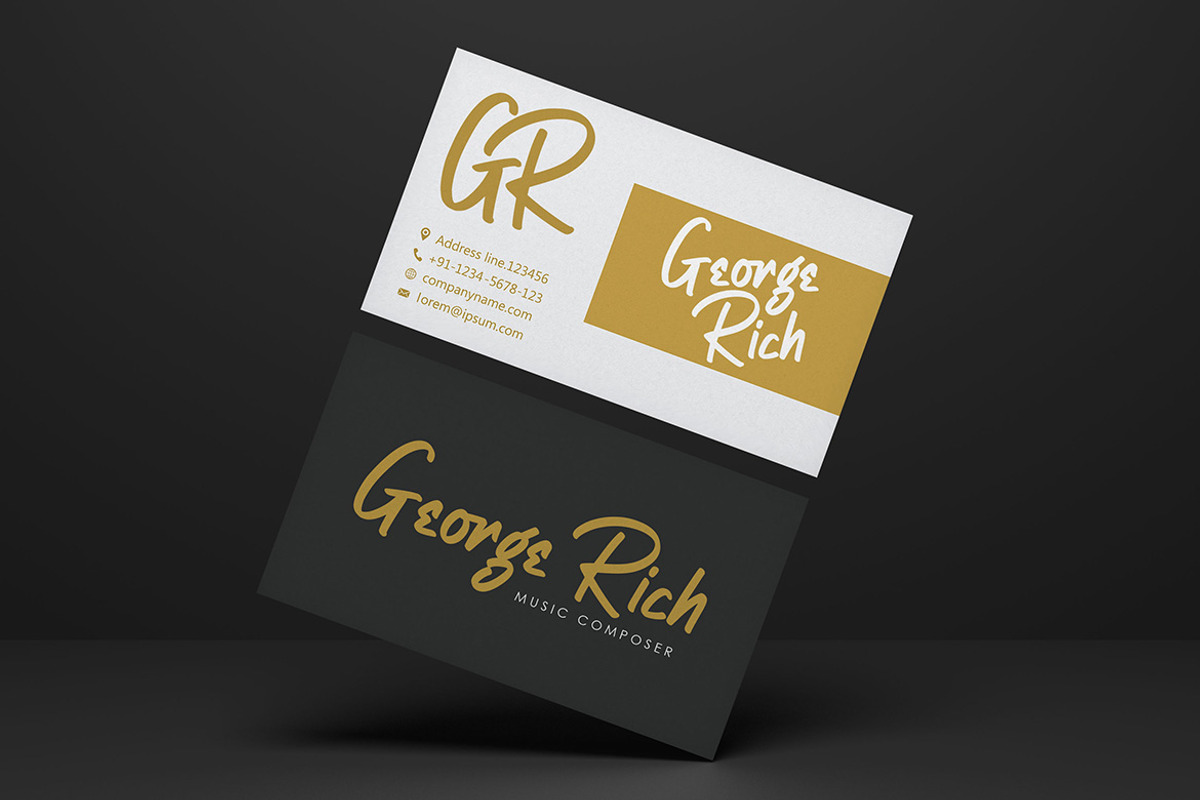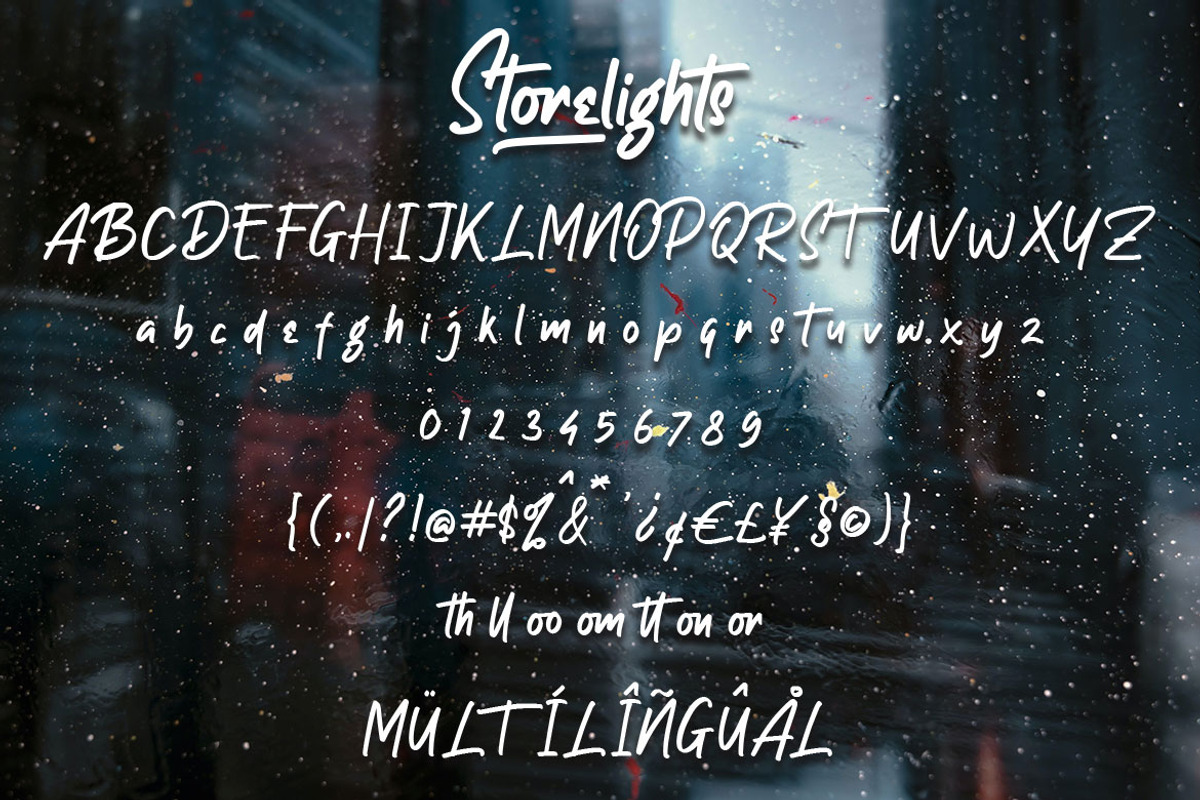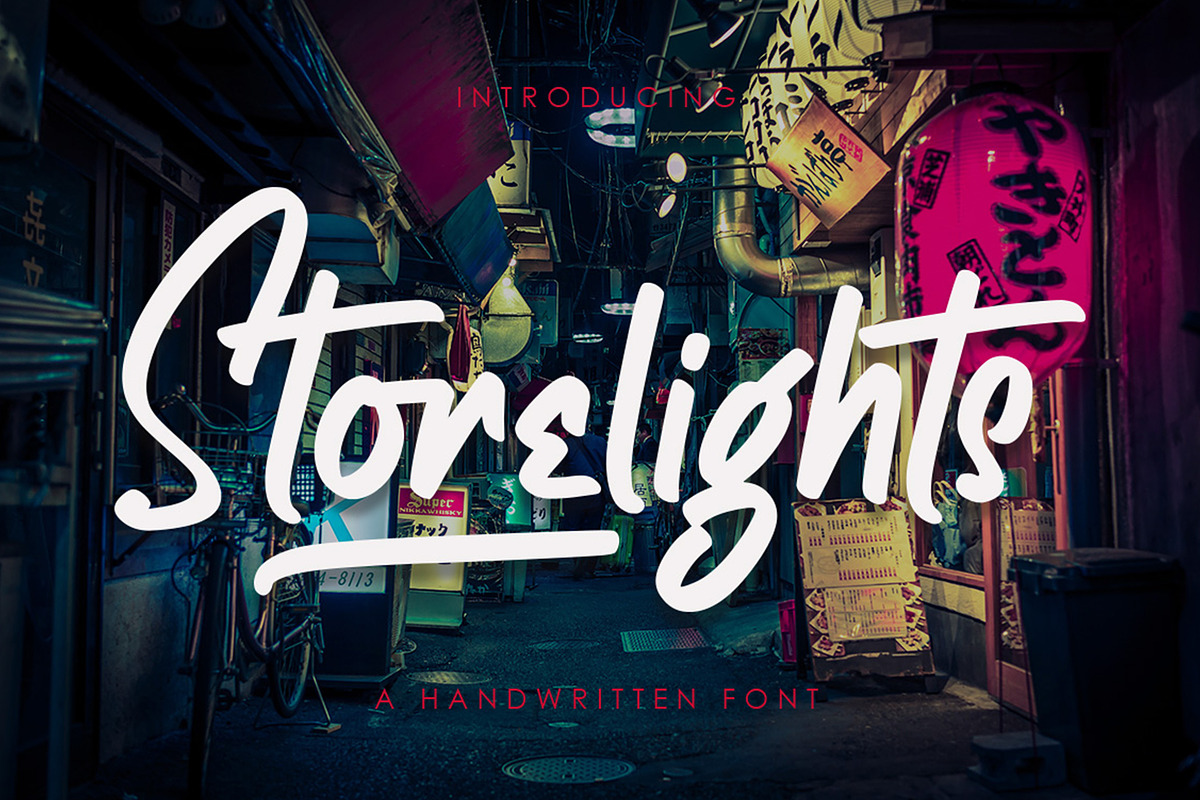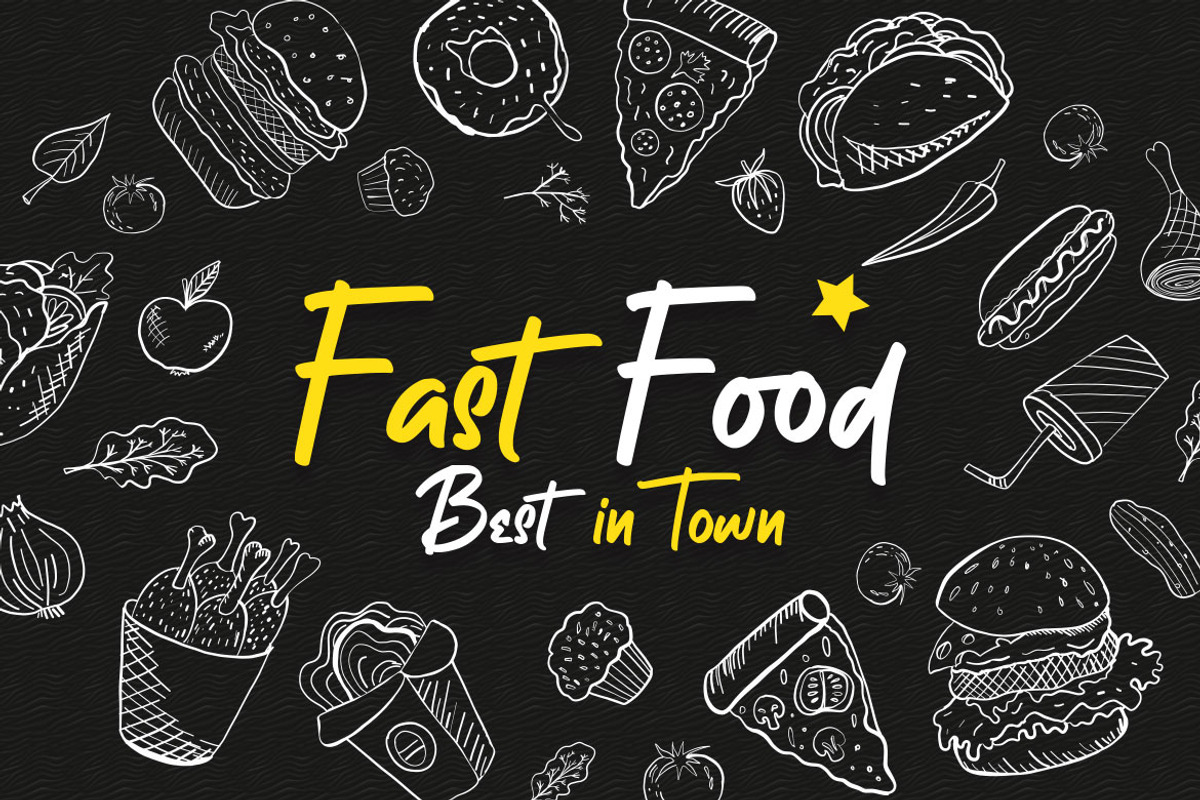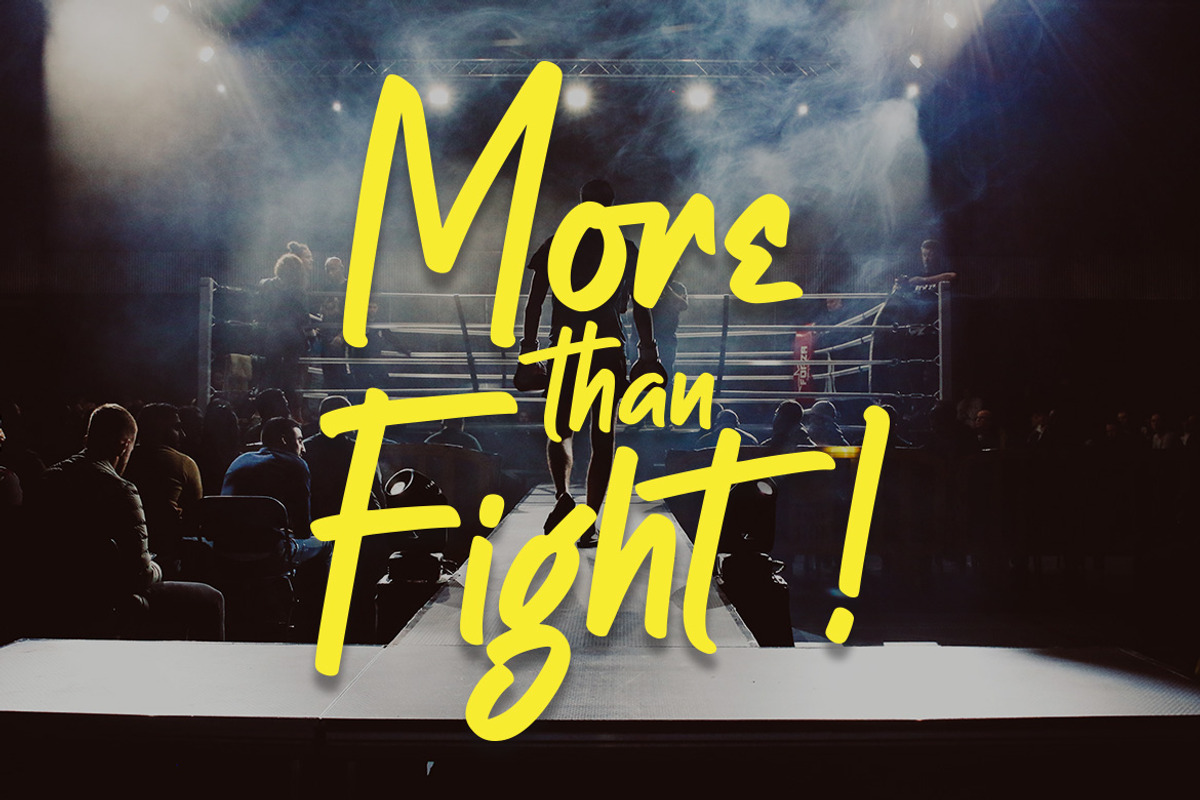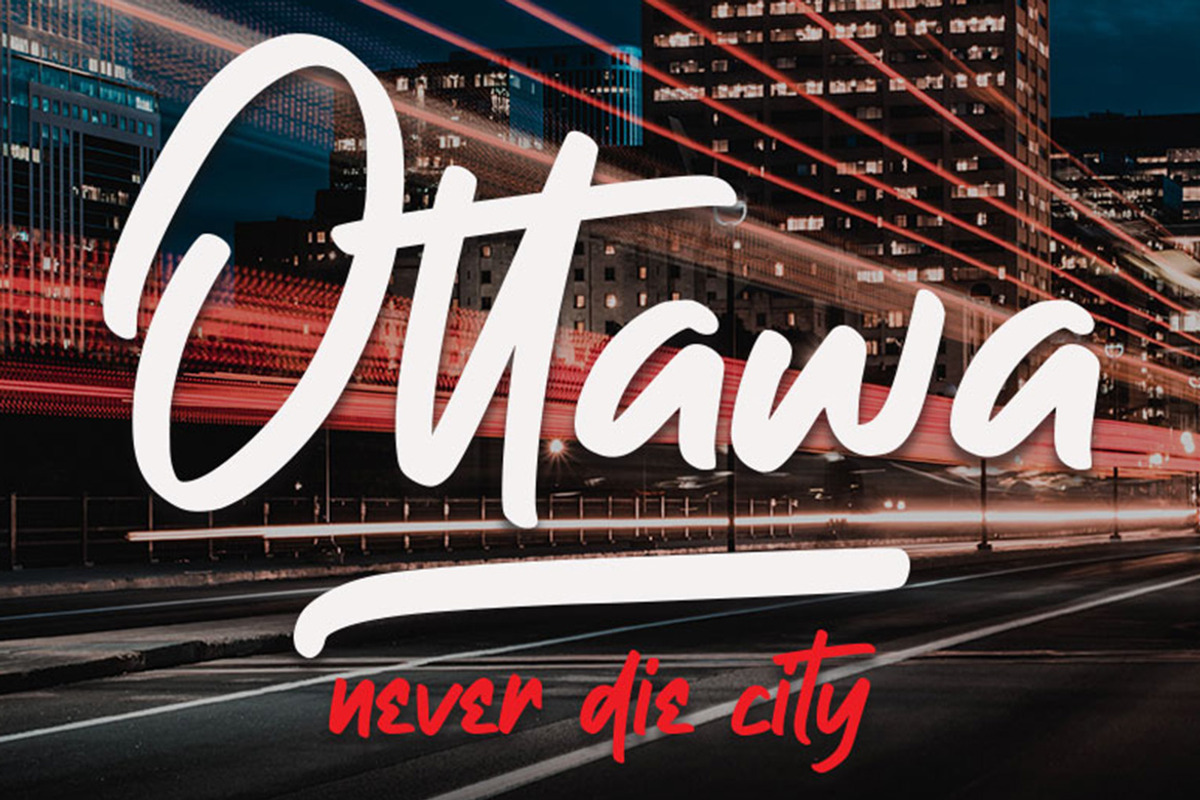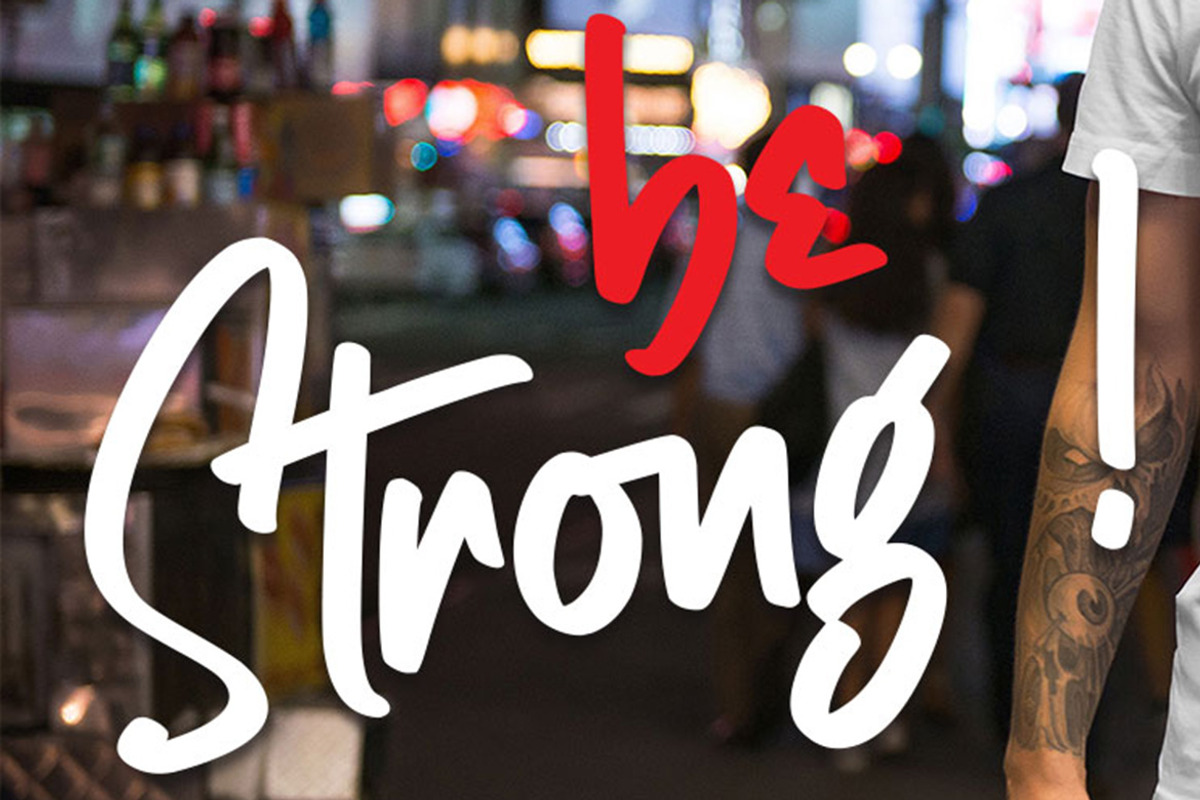
Storelights | Handwritten
Introducing our new font " Storelights " , Made with naturally brush. The font will make your design more beautiful and powerful. This font is suitable for any design like branding, quotes, and etc. I hope you enjoy it !!
- Numerals and Punctuations (OpenType Standard)